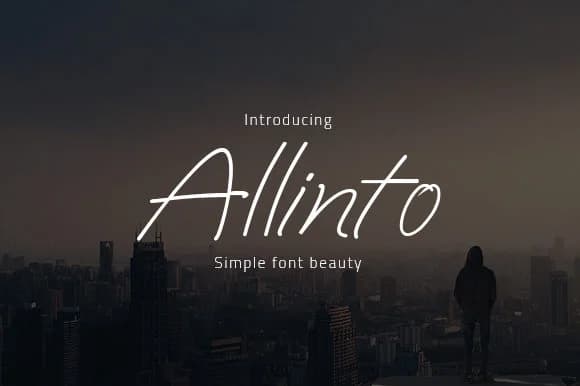
Allinto by OvalStudio is a handwritten script with a contemporary sensibility. The letterforms balance natural pen strokes with refined proportions, delivering authentic personality without sacrificing legibility. Where many scripts feel either too casual or too ornate, Allinto finds middle ground, making it surprisingly versatile. This balanced approach means the typeface works across a broader range of contexts than most scripts would manage.
This typeface thrives in applications where warmth and authenticity carry real value. Wedding invitation suites come alive with its natural, hand-lettered flow. Small business branding for cosmetics lines, boutique retailers, artisanal goods, and specialty services finds just the right tone in Allinto's character. Etsy product labels and packaging design benefit from distinctive personality that generic sans serifs cannot provide. DIY craft signage, personalized stationery, greeting cards, and hand-lettered social media graphics showcase the intentional, handmade quality that draws people in.
Allinto Font is a script font that shines as a display or heading face. Pair it with a clean sans-serif or serif font for body text β the contrast creates a clear hierarchy while the two styles stay balanced and easy to read.